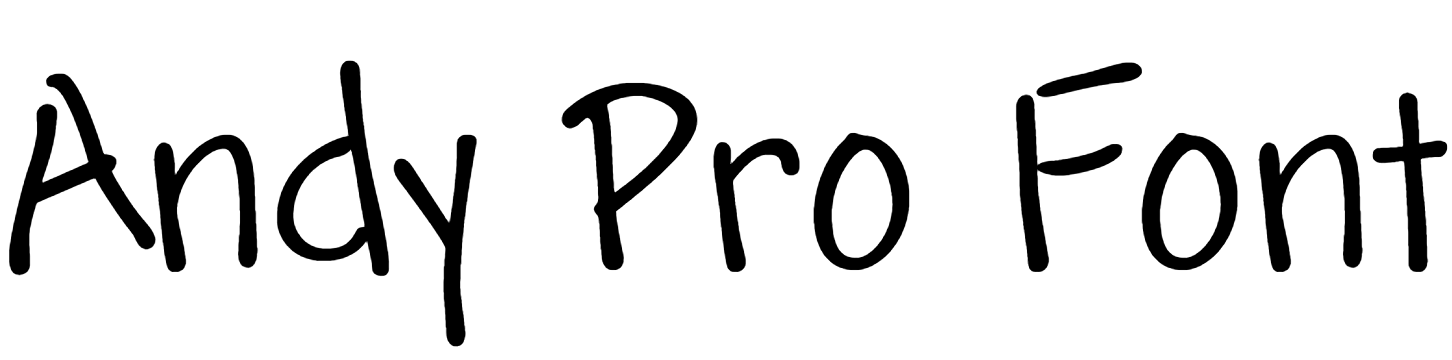
Andy Pro
Andy Pro is a handwritten font designed by Steve Matteson and published by Monotype (2007). The letters have the small wobbles and personality of real handwriting, so your text feels warm instead of printed. You get four styles in one free ZIP, and the preview above lets you test each one before you download.
- Designer: Steve Matteson
- Publisher: Monotype
- Font styles: 4 (Regular, Bold, Bold Italic and Italic)
What You Can Type With Andy Pro
You get every letter from A to Z in both cases and all the numbers from 0 to 9, which means Andy Pro can handle full sentences, dates and prices. Everyday marks like &, !, ? and @ are there too. Thanks to its accented letters, it also works for Spanish, French, German, Portuguese and Italian, not just English.
Where Andy Pro Works Best
Think of Andy Pro for greeting cards, journal pages and friendly social posts. Set it a bit larger than you would a normal text font. Handwriting styles lose their charm once they get too small to read comfortably. Because the family has more than one style, you can mix them in a single design for headings, subheadings and highlights.
Who designed Andy Pro font?
Does Andy Pro support accented letters?
Yes. Andy Pro includes the accented letters needed for Spanish, French, German, Portuguese and Italian, so it works for more than just English.